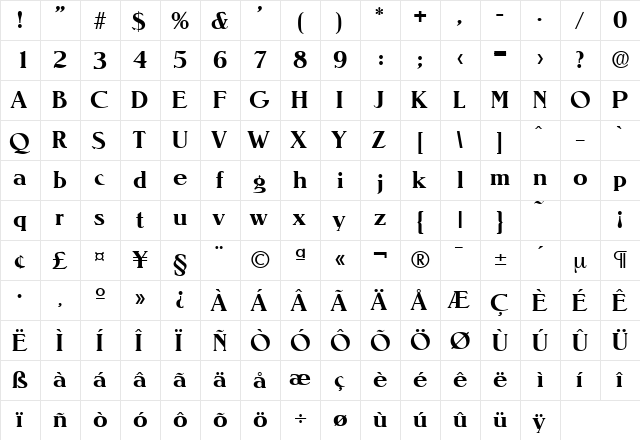
Nevada-Serial Bold Font Preview
Nevada-Serial Bold
Nevada-Serial Bold Font Details
Design Context for Nevada-Serial Typeface
Nevada-Serial takes a measured approach to typography — its balanced proportions and neutral character make it a reliable workhorse for both digital and print work. The heavy weight commands attention and anchors typographic hierarchies.